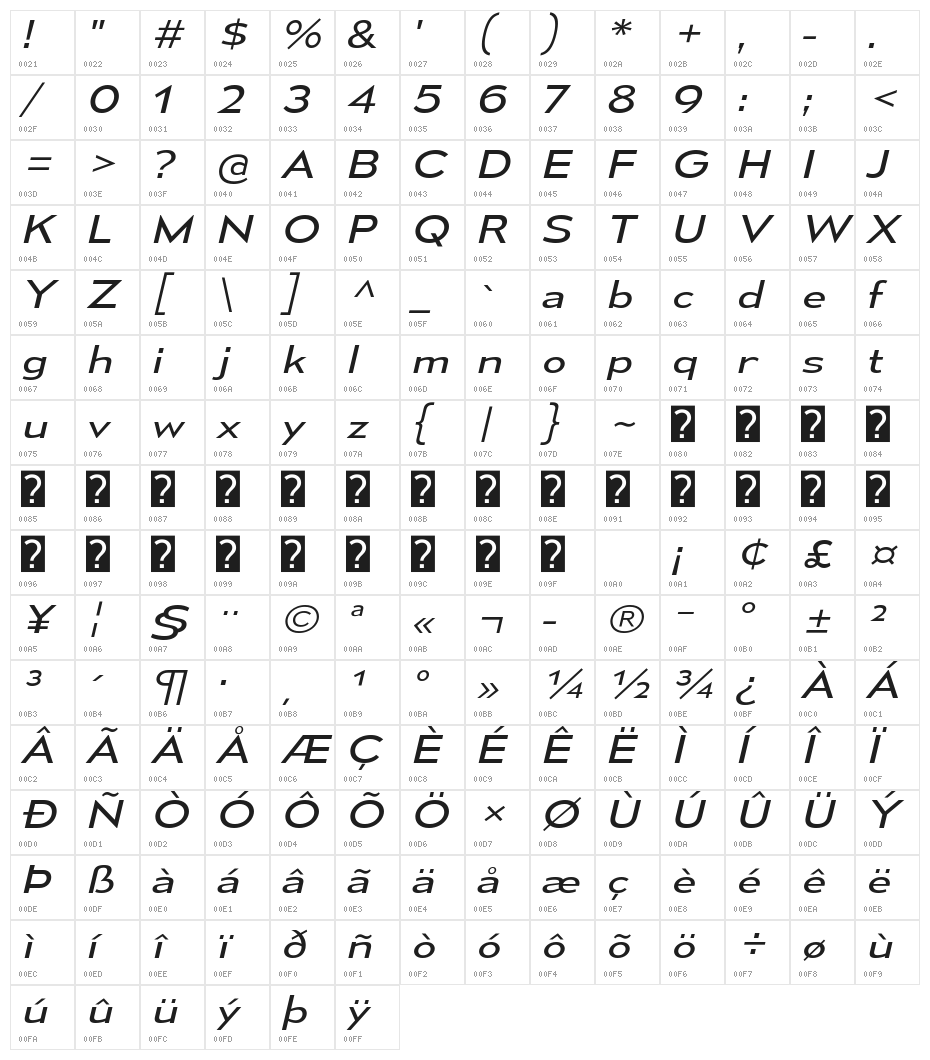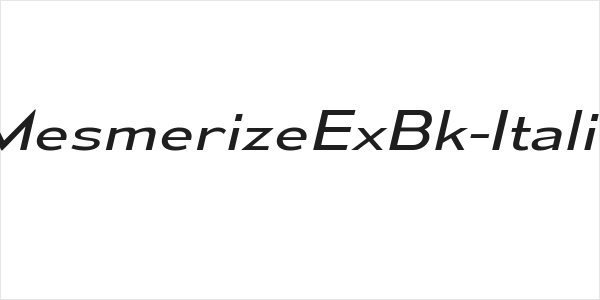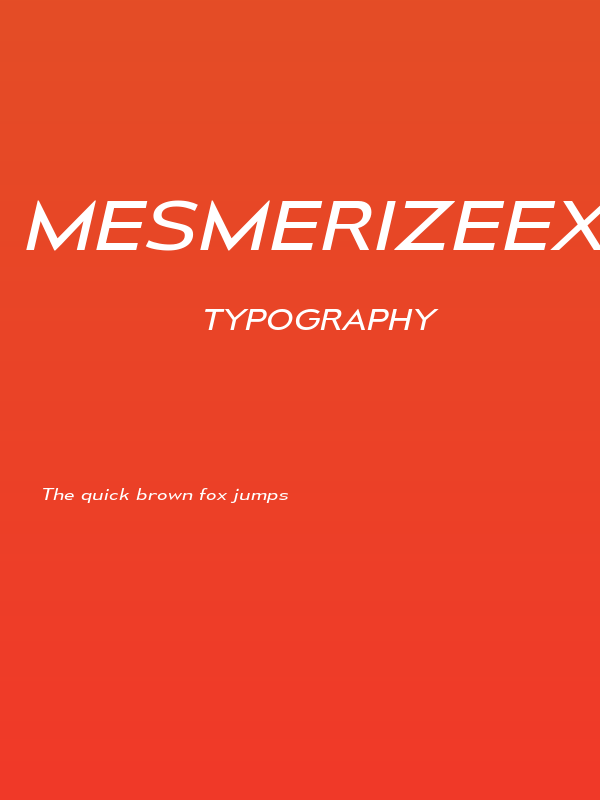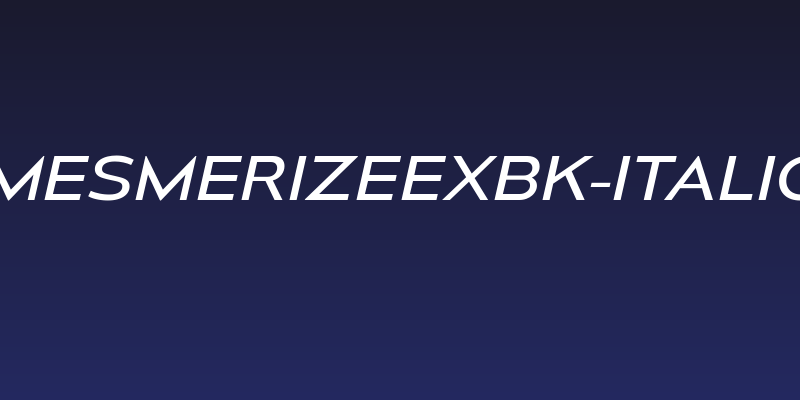
MesmerizeExBk-Italic Font
MesmerizeExBk-Italic Description
This font features a sleek and modern design with a slightly italicized style, giving it a dynamic and forward-leaning appearance. The characters are well-proportioned, with smooth curves and clean lines that enhance readability. The uppercase letters are bold and assertive, while the lowercase letters maintain a consistent flow. Numbers are clear and distinct, making them suitable for various applications. Special characters are thoughtfully designed to complement the overall aesthetic. The font's elegance and subtle sophistication make it versatile for both digital and print media.
| Proposed Projects | Ideal for branding, advertising, digital media, and editorial design. |